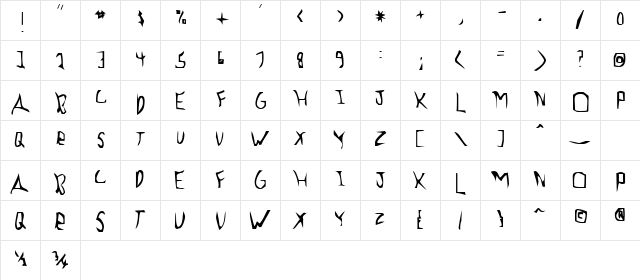
Previewance Regular Font Preview
Previewance Regular
Previewance Regular Font Details
| Foundry | UnAuthorized Type |
| Designer | Ben McGehee |
Design Context for Previewance Typeface
Previewance is a composed and adaptable typeface that performs quietly and consistently across a wide range of design contexts.